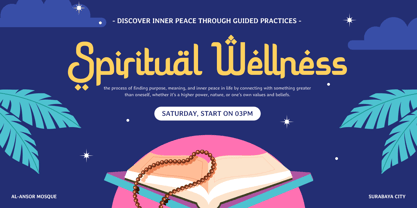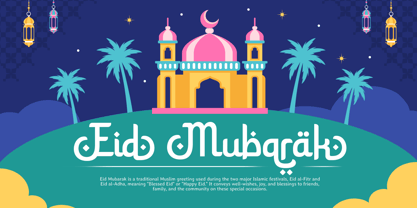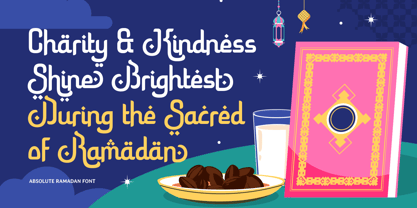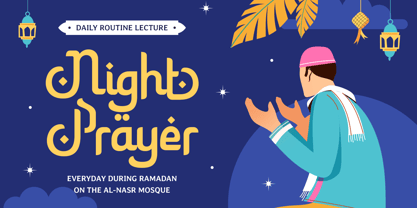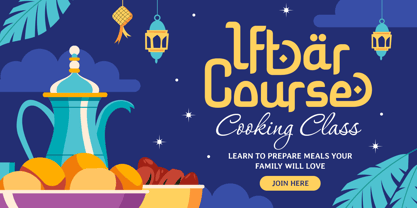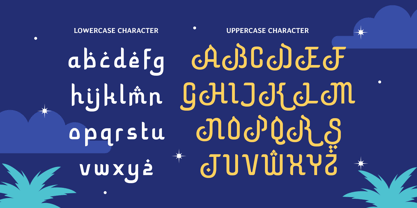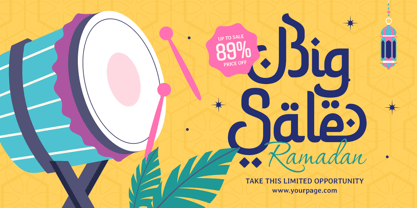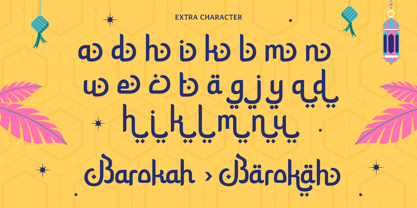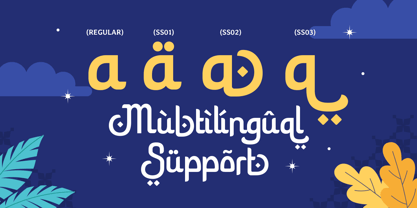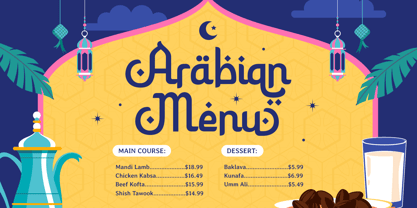
Absolute Ramadan
by Sensatype Studio
The Absolute Ramadan Font Family was designed by Zamroni Hamzah and published by Sensatype Studio. Absolute Ramadan contains 1 styles. More about this family
Absolute Ramadan - Modern Arabic Ramadan Font
Absolute Ramadan is a contemporary Arabic font designed to enhance your creative projects during the holy month of Ramadan. With its clean, sophisticated lines and traditional undertones, it’s perfect for greeting cards, social media campaigns, branding, and event materials.
Inspired by the graceful curves of Arabic calligraphy and the festive spirit of Ramadan, Absolute Ramadan balances modern design aesthetics with cultural authenticity. Whether you’re creating digital or print designs, this font ensures your projects radiate elegance and meaning.
Absolute Ramadan Font Features:
• Modern and Elegant Arabic Typography
• Punctuation, Numbers, and Symbols Included
• Uppercase and Lowercase Characters
• OpenType Features for enhanced creativity
Multilingual Support for:
Afrikaans, Albanian, Asu, Basque, Bemba, Bena, Breton, Chiga, Cornish, Dutch, English, Estonian, Filipino, Finnish, Friulian, Galician, German, Gusii, Indonesian, Irish, Italian, Kabuverdianu, Kalenjin, Kinyarwanda, Luo, Luxembourgish, Luyia, Machame, Makhuwa-Meetto, Makonde, Malagasy, Manx, Morisyen, North Ndebele, Nyankole, Oromo, Portuguese, Quechua, Romansh, Rombo, Rundi, Rwa, Samburu, Sango, Sangu, Scottish Gaelic, Sena, Shambala, Shona, Soga, Somali, Spanish, Swahili, Swedish, Swiss.
Designers: Zamroni Hamzah
Foundry: Sensatype Studio